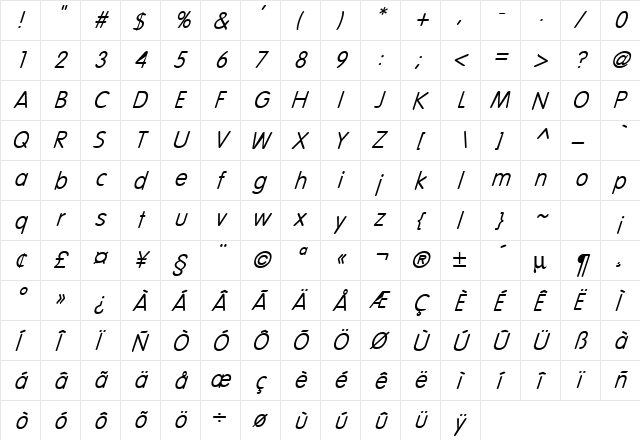
Nicoll Italic Regular
Design Context for Nicoll Italic Typeface
Nicoll Italic offers clean, dependable letterforms without strong stylistic allegiance, making it a practical choice for designers who need flexibility. Its italic angle brings a sense of urgency and motion to the letterforms.
Pro Tip: Try Nicoll Italic for annotation and caption copy alongside an upright companion — the contrast in angle creates a dynamic but ordered typographic system.